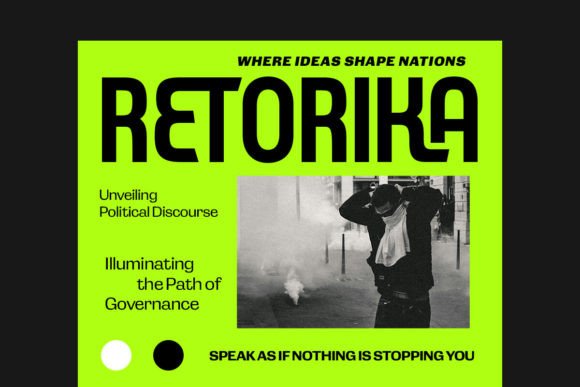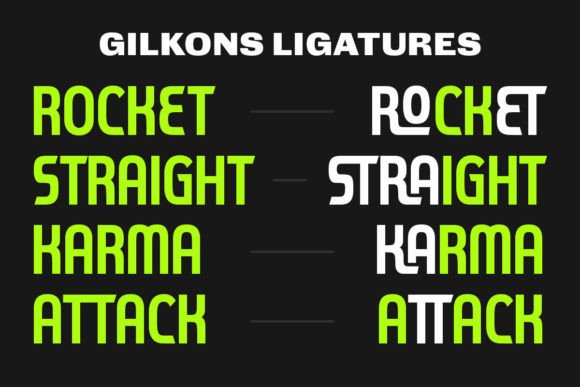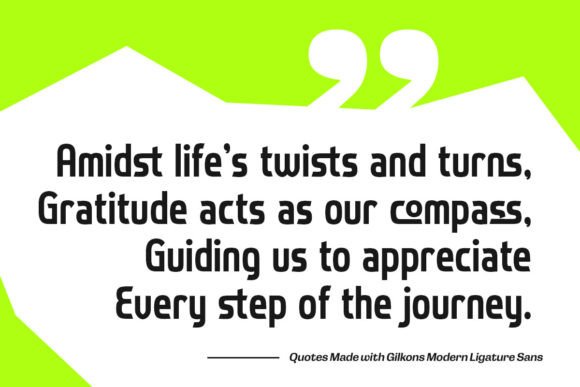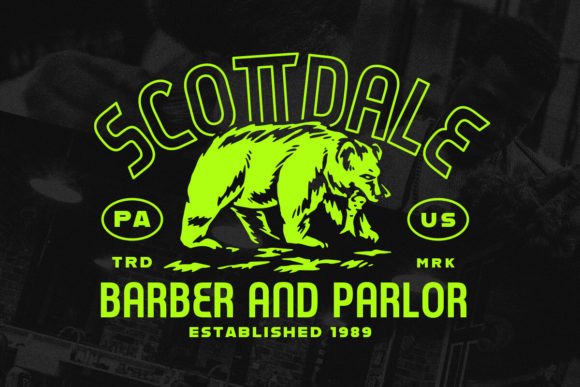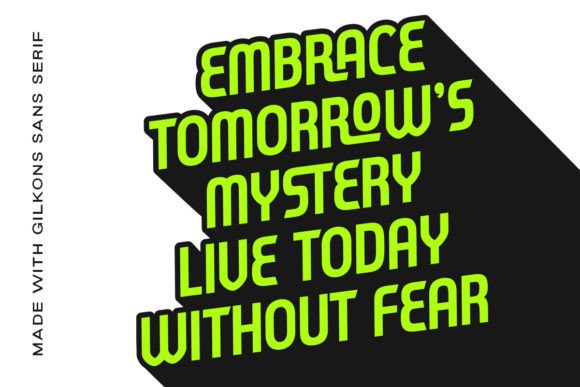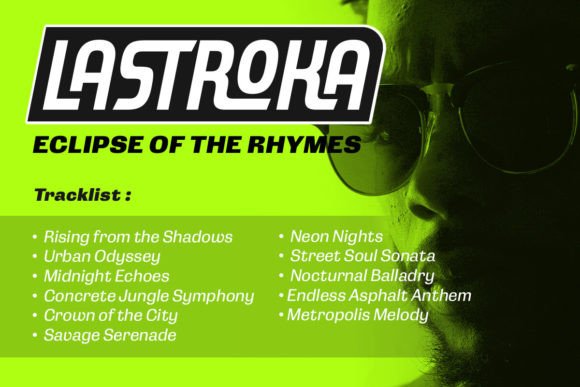
Introducing Gilkons: A Modern Sans Serif Font for Sleek Designs
In the world of typography, a new font has emerged that is taking the design community by storm. Say hello to Gilkons, a ligature sans serif font that exudes modern vibes and sleek sophistication. This font is perfect for designers and crafters looking to create stunning visuals for their projects, whether it’s a logo, invitation, or packaging design.
The Gilkons Advantage
Gilkons boasts neat and sleek letterforms that make it an ideal choice for modern and minimalistic design themes. Its clean lines and curves create a sense of elegance and refinement, making it perfect for designs that require a touch of sophistication. Whether you’re working on a logo, magazine, book, or greeting card, Gilkons is the perfect font to elevate your design.
One of the standout features of Gilkons is its versatility. This font can be used for a wide range of design projects, including:
- Logos: Create a lasting impression with a custom logo that showcases your brand’s personality.
- Invitations: Make your invitations stand out with a beautiful and elegant font.
- Labels: Add a touch of sophistication to your product labels and make them more appealing to customers.
- Magazines and books: Use Gilkons to create stunning text layouts that will engage your readers.
- Greeting and wedding cards: Add a personal touch to your cards with a beautiful and elegant font.
- Packaging: Make your product packaging stand out with a custom design that features Gilkons.
- Fashion and makeup: Use Gilkons to create stunning visuals for your fashion or makeup brand.
- Stationery: Elevate your stationery designs with a modern and sleek font.
- Novels: Use Gilkons to create a professional-looking novel that will stand out from the crowd.
Why Choose Gilkons?
So, why should you choose Gilkons for your design projects? Here are just a few reasons:
- Modern and sleek design: Gilkons features a modern and sleek design that will elevate your designs and make them more appealing to your audience.
- Highly versatile: This font can be used for a wide range of design projects, making it a great addition to your font library.
- Elegant and refined: Gilkons features elegant and refined letterforms that will add a touch of sophistication to your designs.
- Easy to read: The clean lines and curves of Gilkons make it easy to read, even at small font sizes.
Tips for Using Gilkons
Here are a few tips for using Gilkons in your design projects:
- Pair it with other fonts: Gilkons pairs well with other sans serif fonts, so don’t be afraid to experiment with different font combinations.
- Use it for headlines and body text: Gilkons is perfect for both headlines and body text, making it a great choice for long-form content.
- Experiment with different colors: Gilkons looks great in a variety of colors, so don’t be afraid to experiment with different color schemes.
In conclusion, Gilkons is a modern sans serif font that is perfect for designers and crafters looking to create stunning visuals for their projects. Its sleek and elegant design makes it ideal for modern and minimalistic design themes, and its versatility makes it a great addition to any font library. Whether you’re working on a logo, invitation, or packaging design, Gilkons is the perfect font to elevate your design.